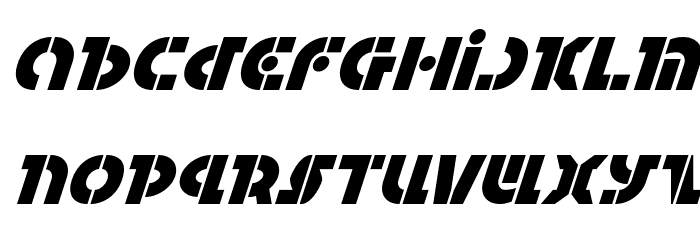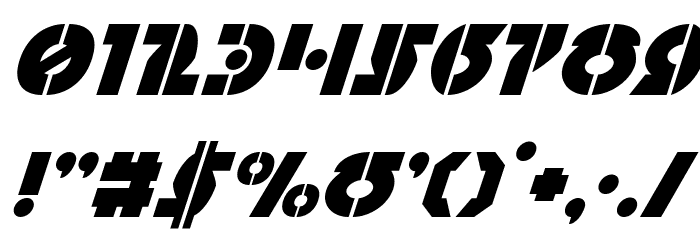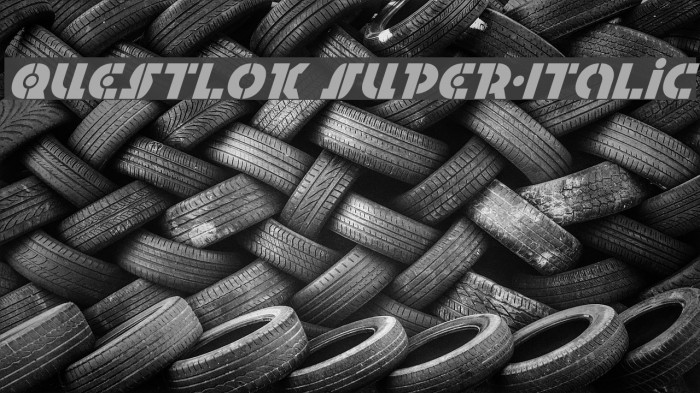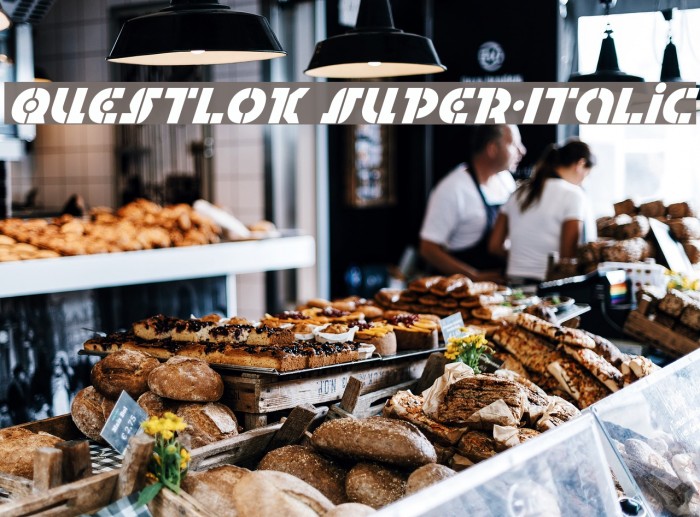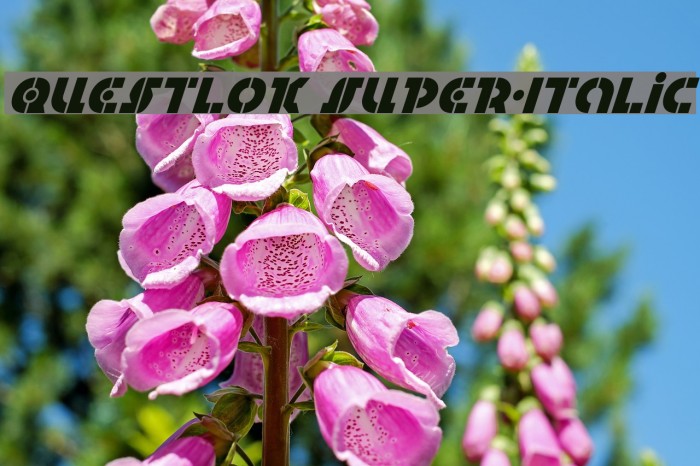
Questlok Super-Italic Font
This font features a bold, geometric style with a futuristic flair. The characters are constructed with sharp angles and distinct cuts, creating a dynamic and energetic appearance. The italic slant adds a sense of motion, enhancing its modern aesthetic. Each letter is uniquely stylized, with some incorporating circular elements that add to the font's distinctiveness. The numbers and special characters maintain the same bold and angular design, ensuring consistency across all glyphs. This font is ideal for projects that require a strong visual impact and a contemporary feel.
A bold, geometric, and futuristic italic font with sharp angles and dynamic style.
- Proposed Projects: Ideal for branding, posters, video game graphics, and futuristic-themed designs.